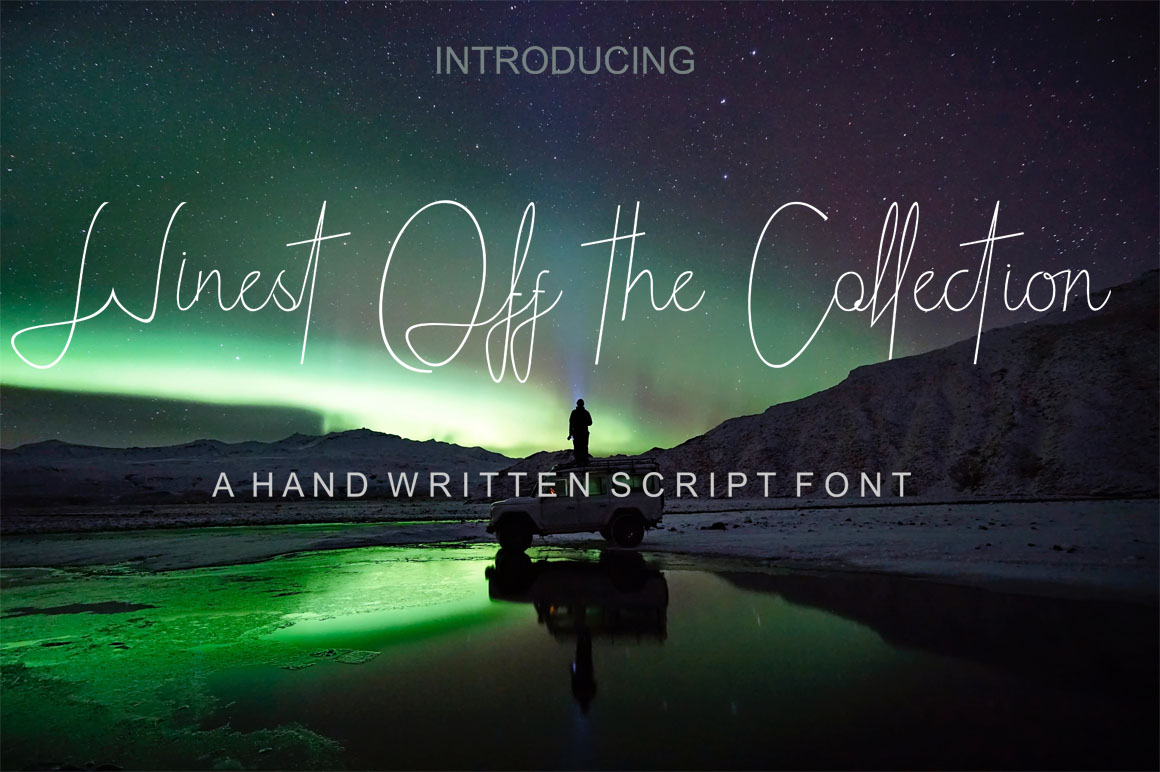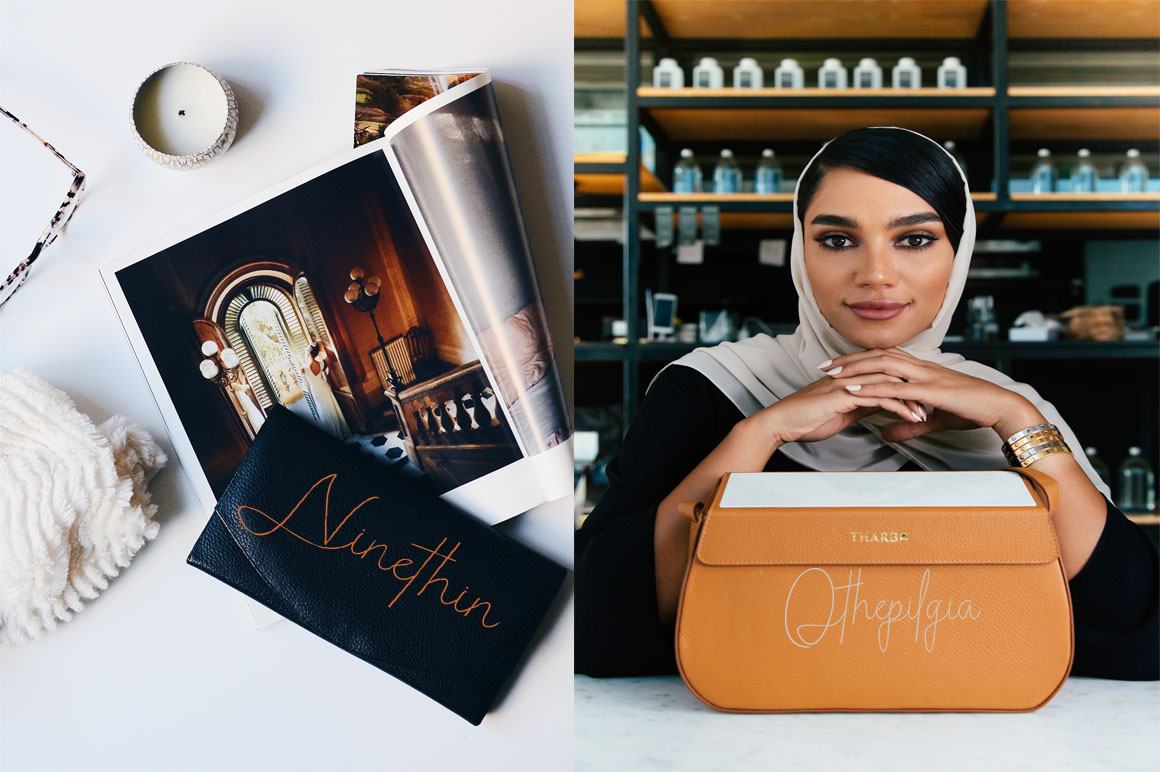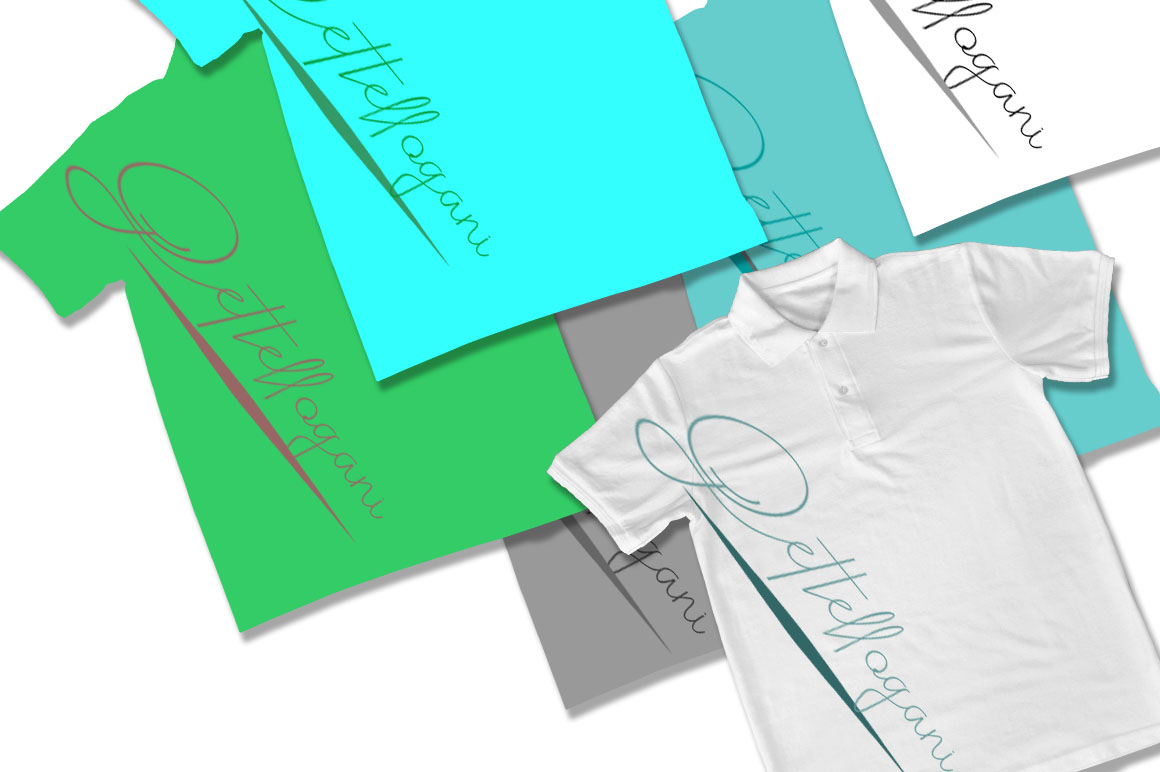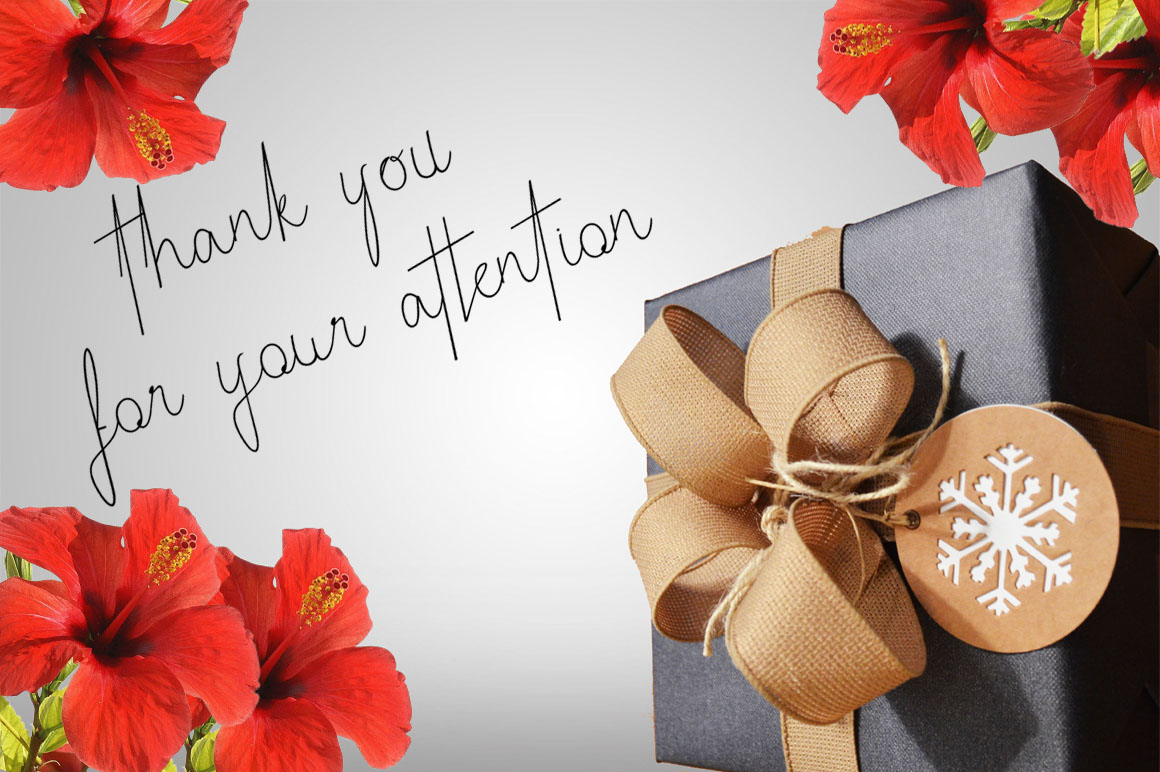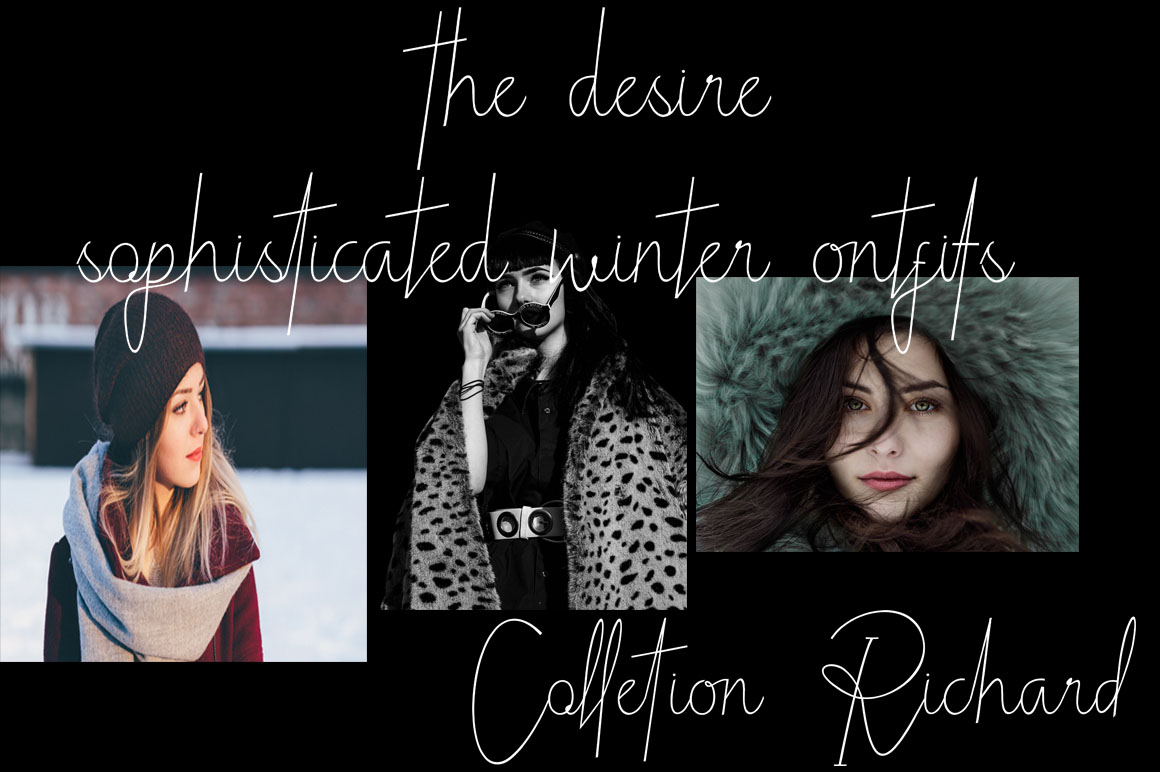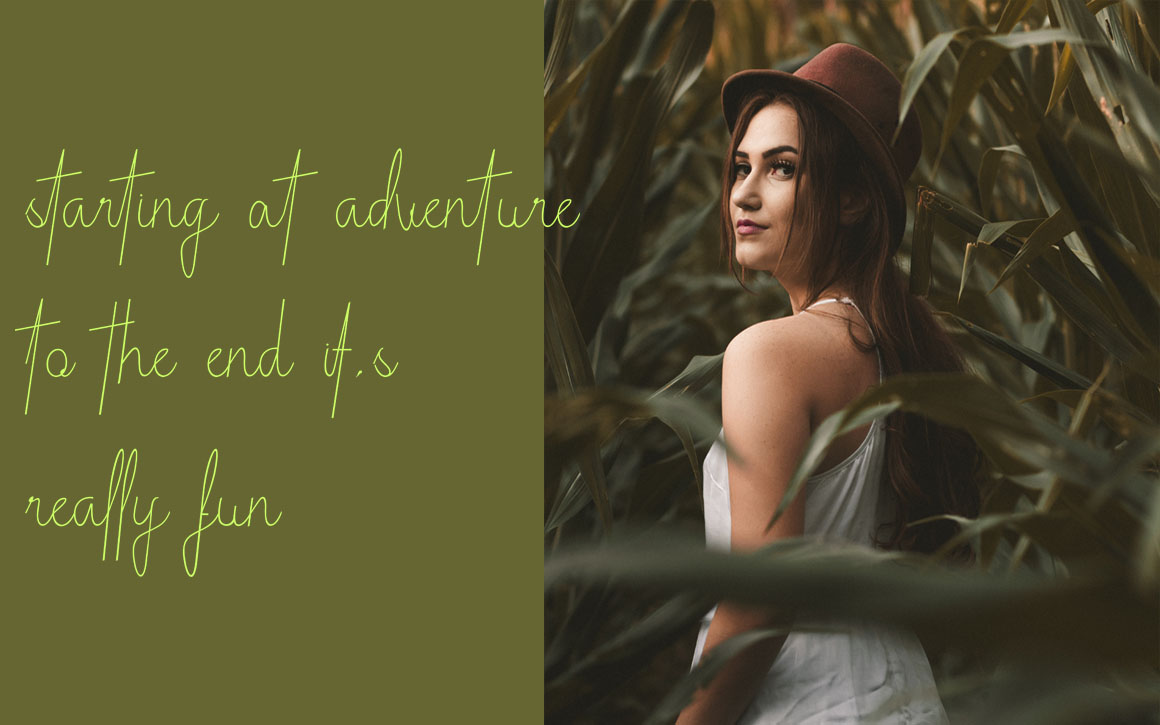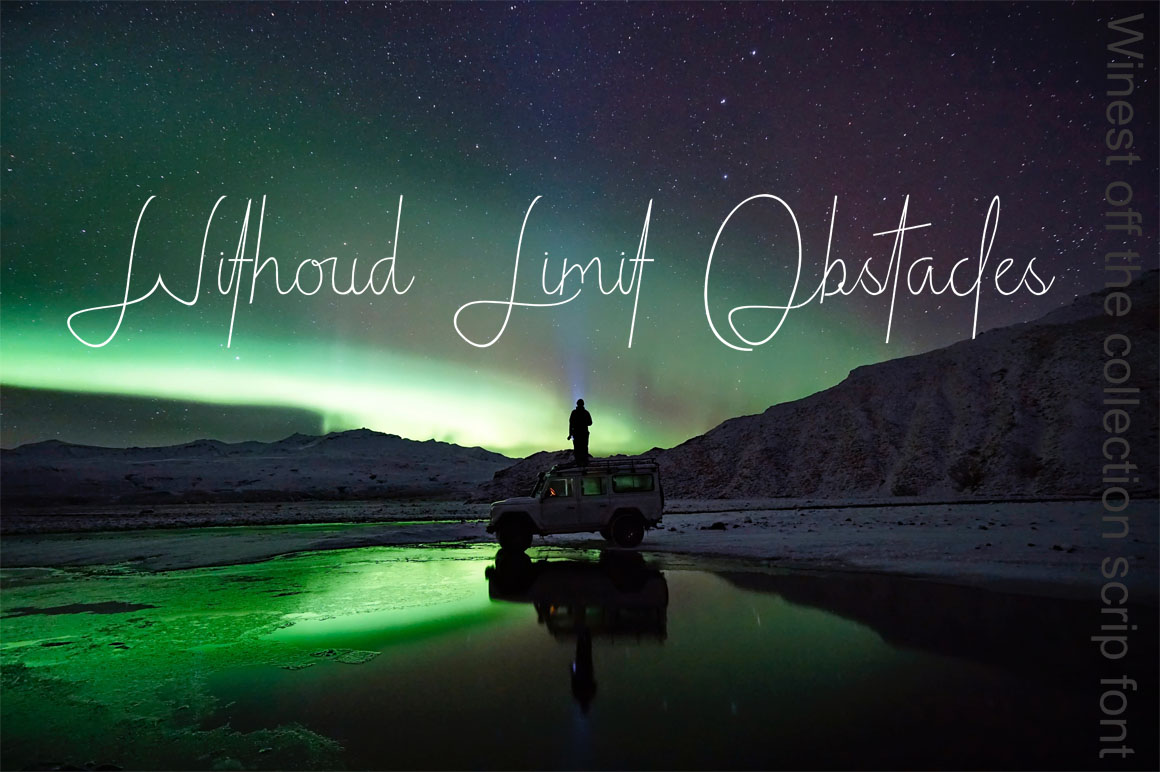
Winest off the Collection Font
About Winest off the Collection Font
Winest Off the Collection is a beautiful font set that was made to look as close as possible to natural handwriting, with a signature relaxed vibe. This fashionable and sexy font is a great way to elevate your brand or business.